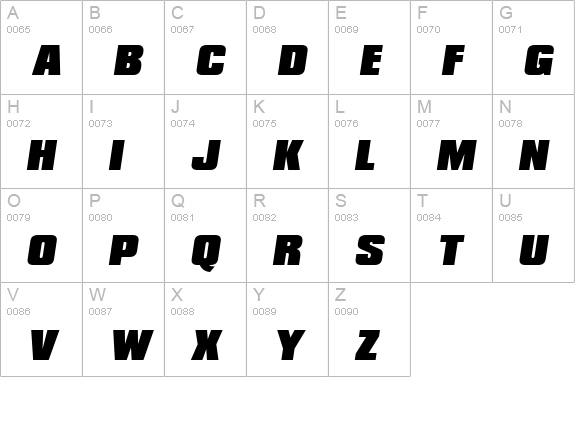
Compacta ICG BlackItalic is a sleek and modern font style that exudes sophistication and elegance. Its bold and italicized design adds a touch of flair to any design project, making it perfect for headings, titles, and other attention-grabbing text. The sharp angles and clean lines of this font give it a contemporary edge that is sure to make a statement. Best of all, Compacta ICG BlackItalic is available for free download at FontsMarket.com, making it accessible to designers and creatives looking to elevate their projects without breaking the bank. Whether you're working on a branding project, advertising campaign, or any other design endeavor, Compacta ICG BlackItalic is sure to make a lasting impression. Download it today and add a touch of sophistication to your next project!